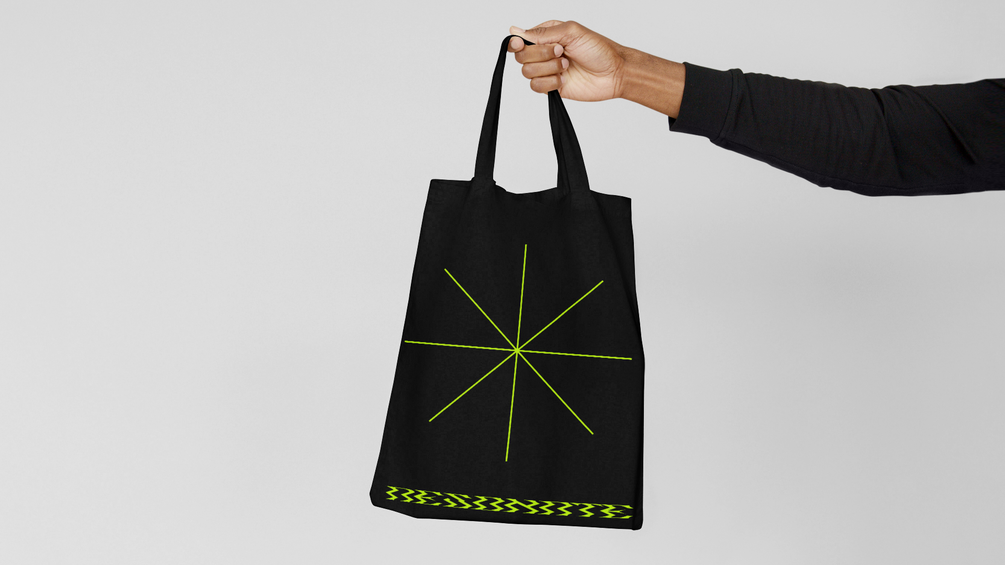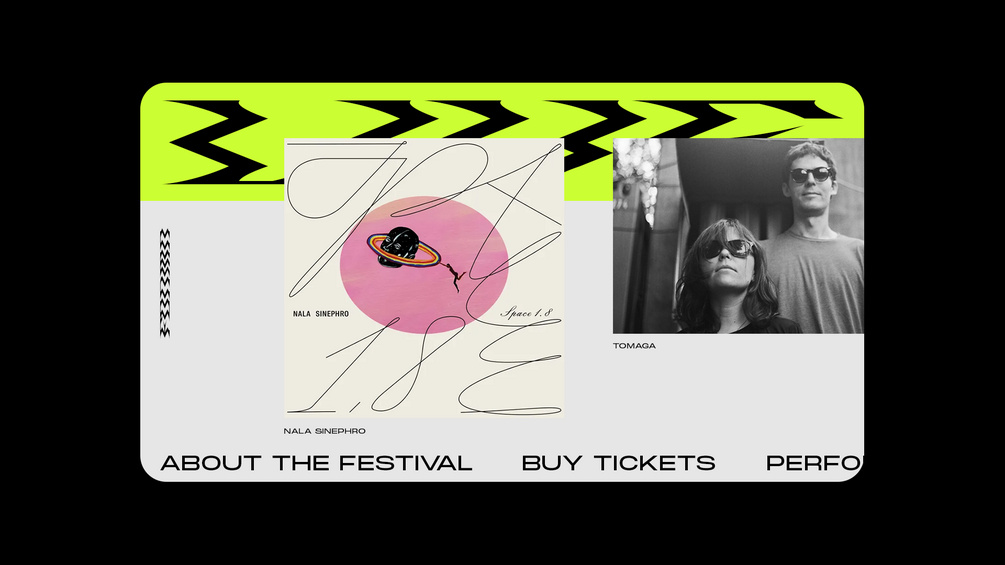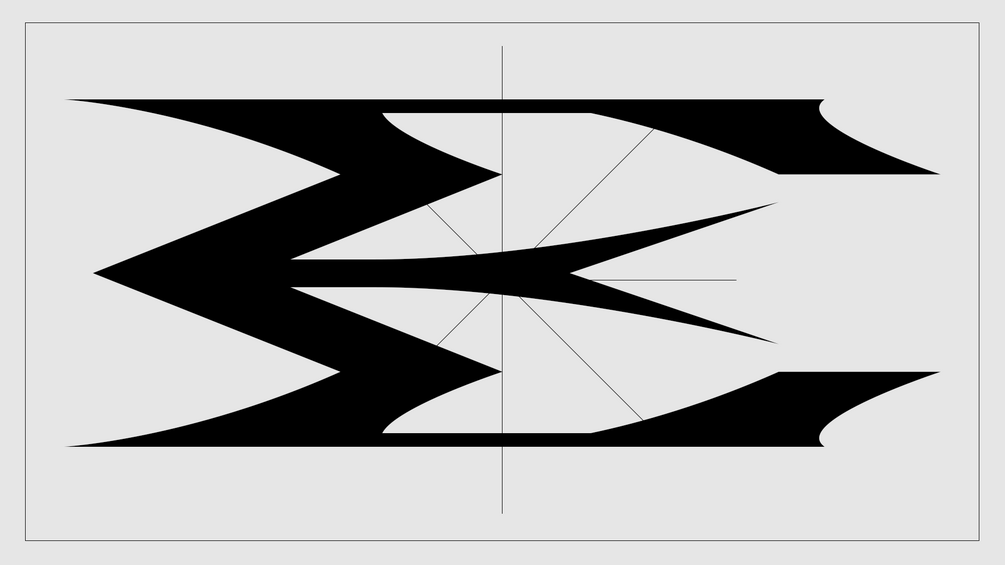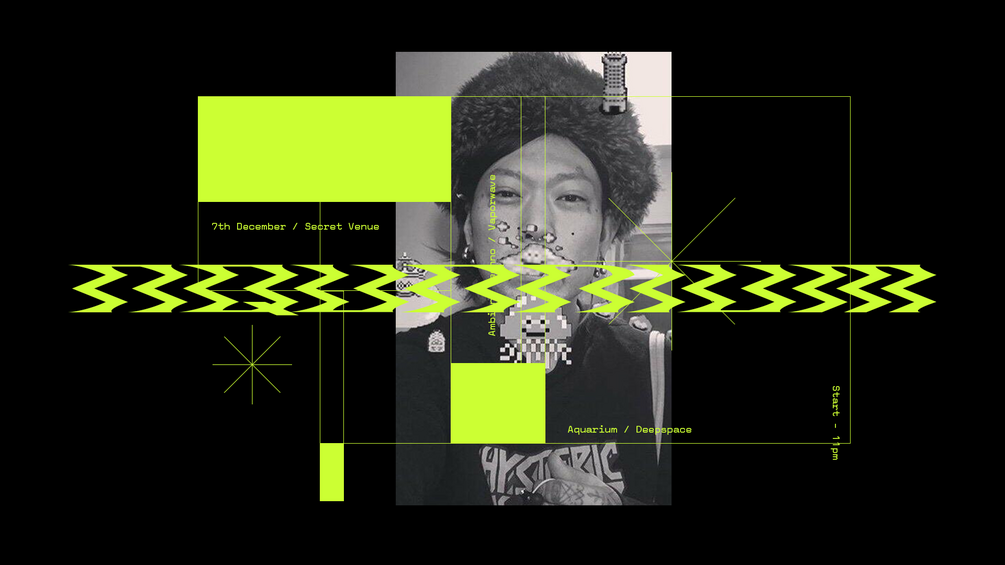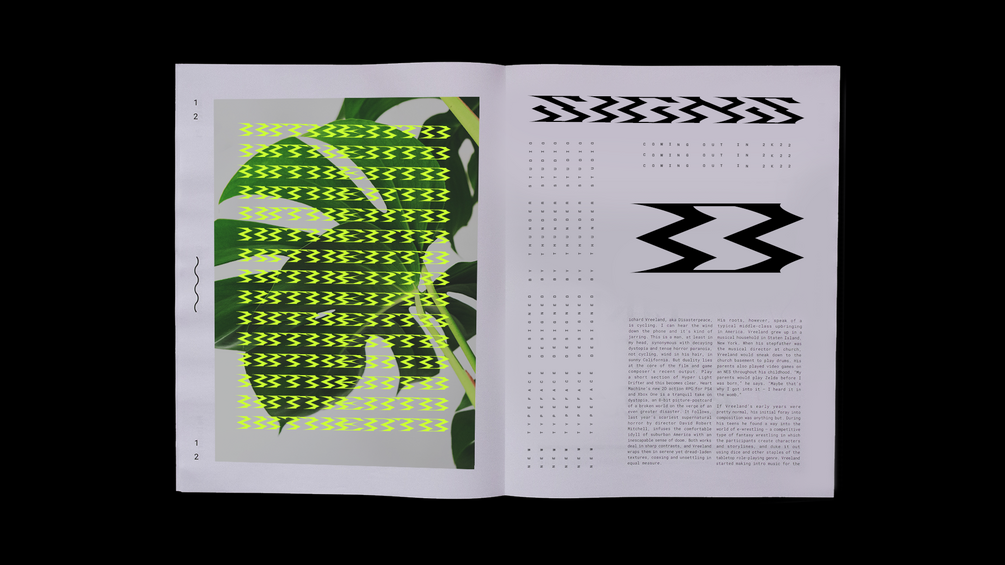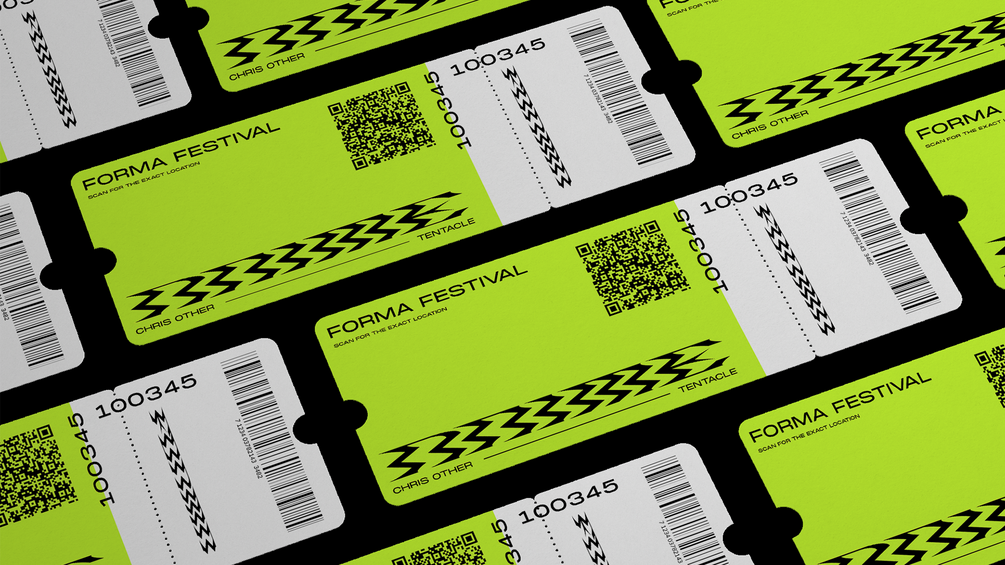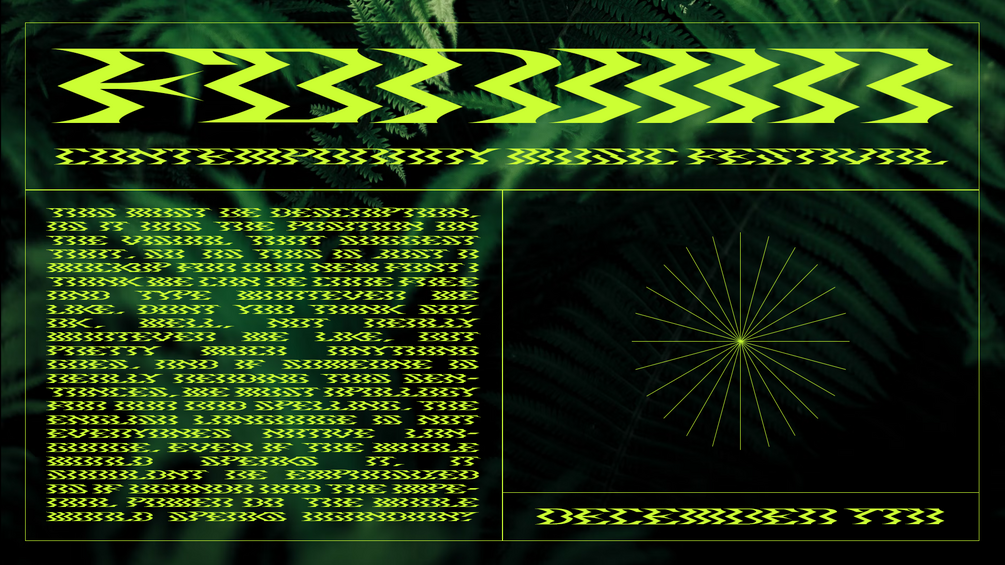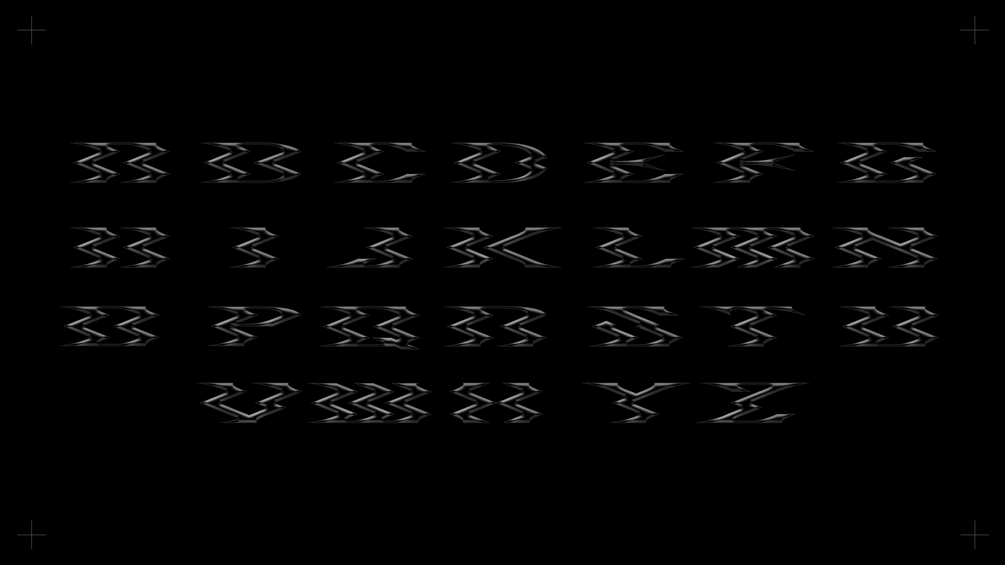
Hitherto - Free Font
Hitherto is a contemporary display font inspired by sharp lines and experimental typography. Idea was to make all letters as uniform as they can be, and keep the zig-zag look on all of them. It's perfect for big headlines, horizontal formats, and also making your design pop up without adding too much. Share with us your visuals with a hashtag #hithertotype